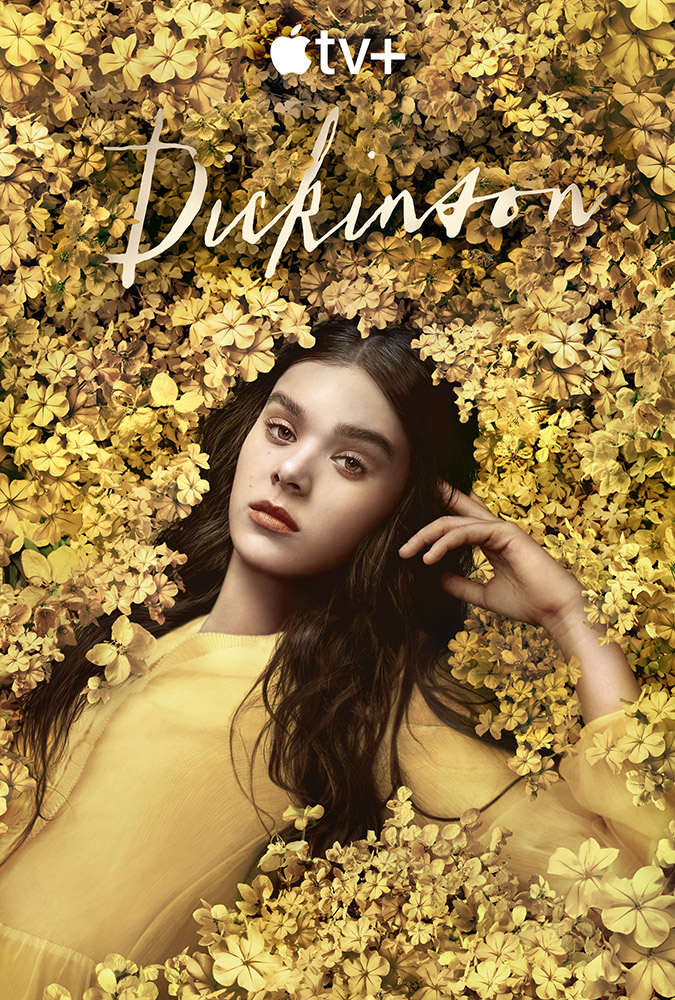
Dickinson [TV Show] Font
ComedyDickinson is a television series that premiered on Apple TV+ in 2019. It is a comedy-drama that explores the life and work of the famous 19th-century poet Emily Dickinson.
The Dickinson TV series title seems to use a hand-drawn font named Saissant, created by Jessica McCarty and published by Magpie Paper Works. The calligraphic, decorative, romantic handwriting of this font adds an emotional impact.